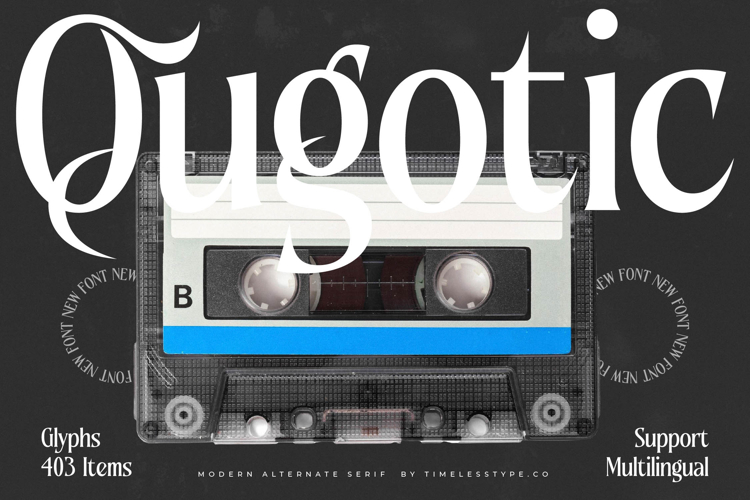
Qugotic - Modern Alternate Serif
Elevate your design projects with the unparalleled elegance of Font Qugotic - Modern Alternate Serif Serif Display. This magnificent display serif embodies a perfect fusion of classic sophistication and contemporary flair, designed to command attention and convey an immediate sense of prestige. Its meticulously crafted letterforms feature a striking high-contrast interplay of thick and thin strokes, ensuring visual impact that captivates and resonates with discerning audiences.
Discover a wealth of creative possibilities with the exceptional character sets of Font Qugotic - Modern Alternate Serif Serif Display. Featuring an array of stylistic alternates and ligatures, this font empowers designers to personalize typography, creating truly unique and memorable logotypes, headlines, and titles. Its expressive curves and sharp serifs are engineered for maximum visual appeal, making it an indispensable asset for conveying a message of refinement and distinction in any creative endeavor.
Font Qugotic - Modern Alternate Serif Serif Display is meticulously designed for applications demanding an elevated aesthetic. It is absolutely perfect for luxury branding, high-end editorial layouts, sophisticated packaging, elegant invitations, and compelling advertising campaigns. Its inherent grace makes it the ultimate choice for projects requiring a touch of exclusivity, ensuring your brand message is communicated with an air of undeniable class and timeless appeal.
With its extensive multilingual support, Font Qugotic - Modern Alternate Serif Serif Display adapts seamlessly across global markets, making it incredibly versatile for international projects. This comprehensive language coverage ensures your brand maintains its distinctive voice and premium aesthetic, no matter the audience. Choose Font Qugotic - Modern Alternate Serif Serif Display to infuse your designs with a sophisticated, globally resonant impact that truly sets them apart.